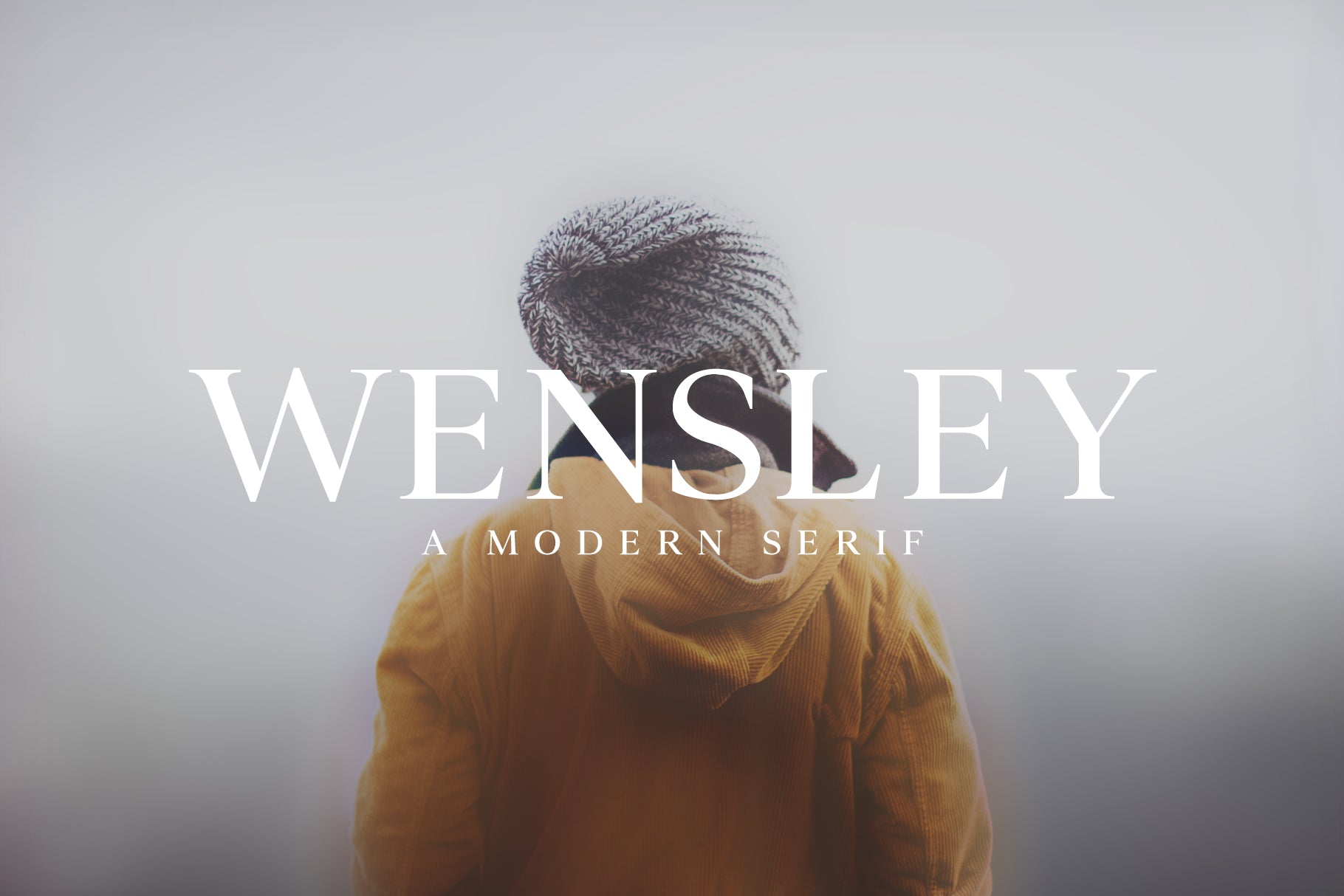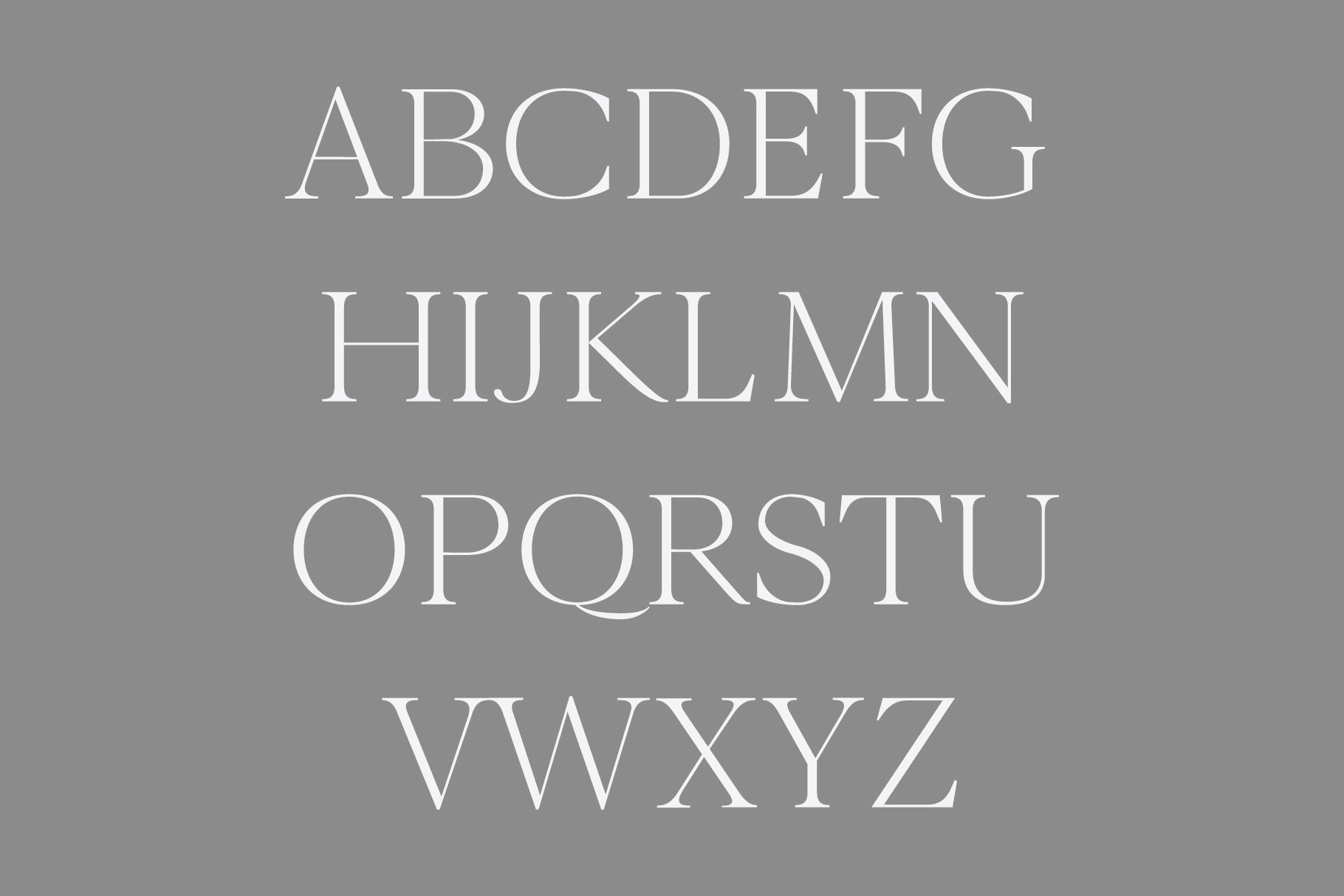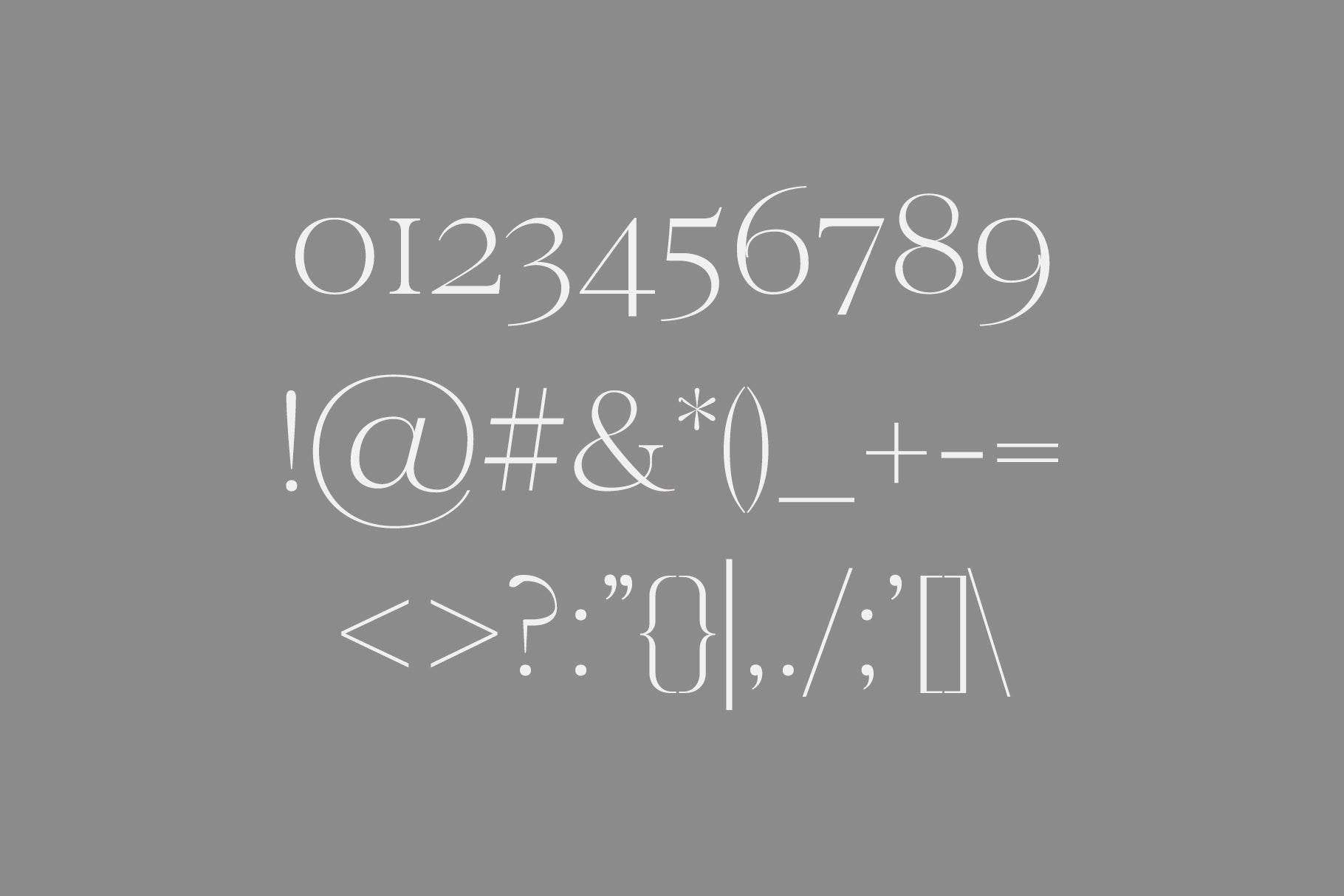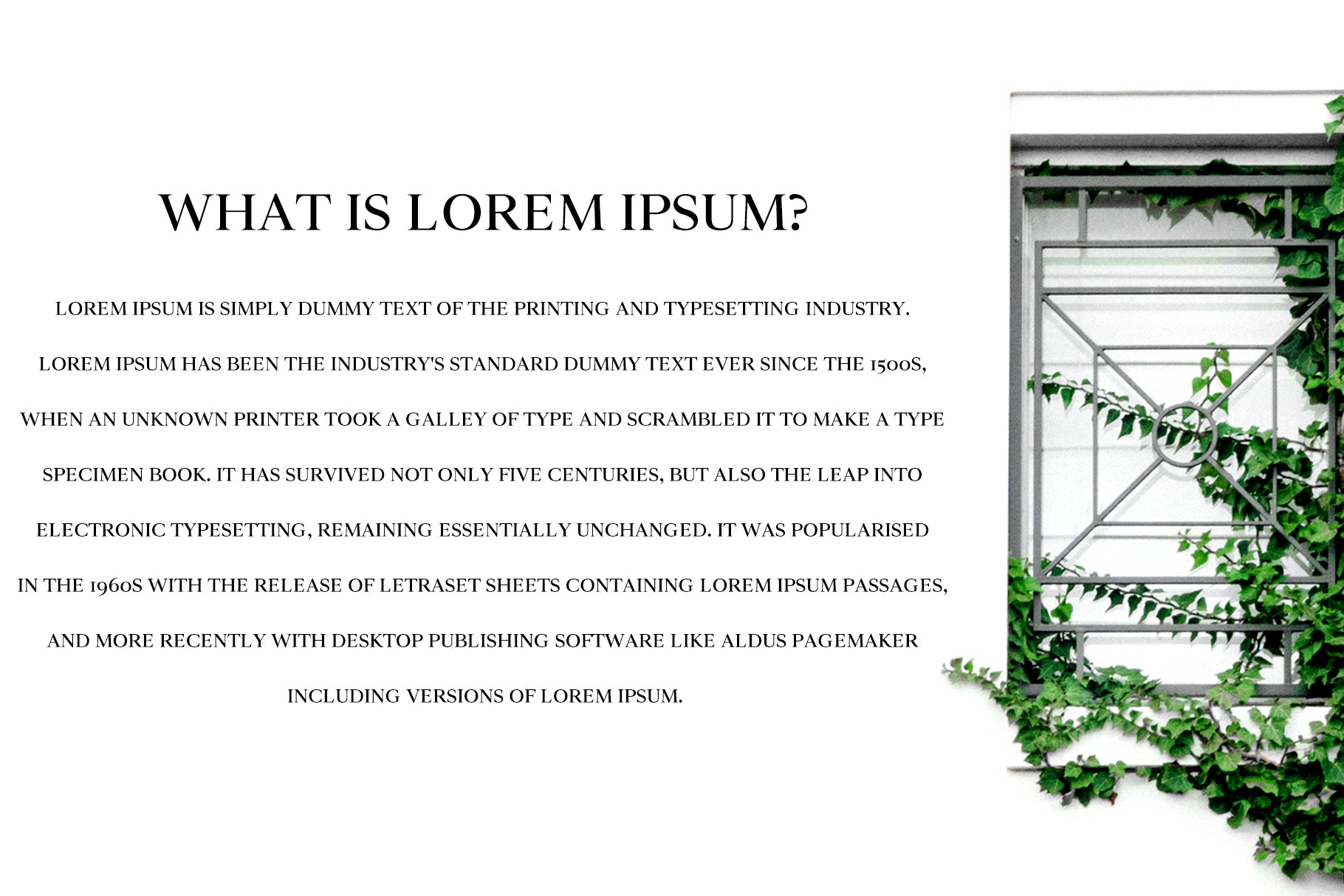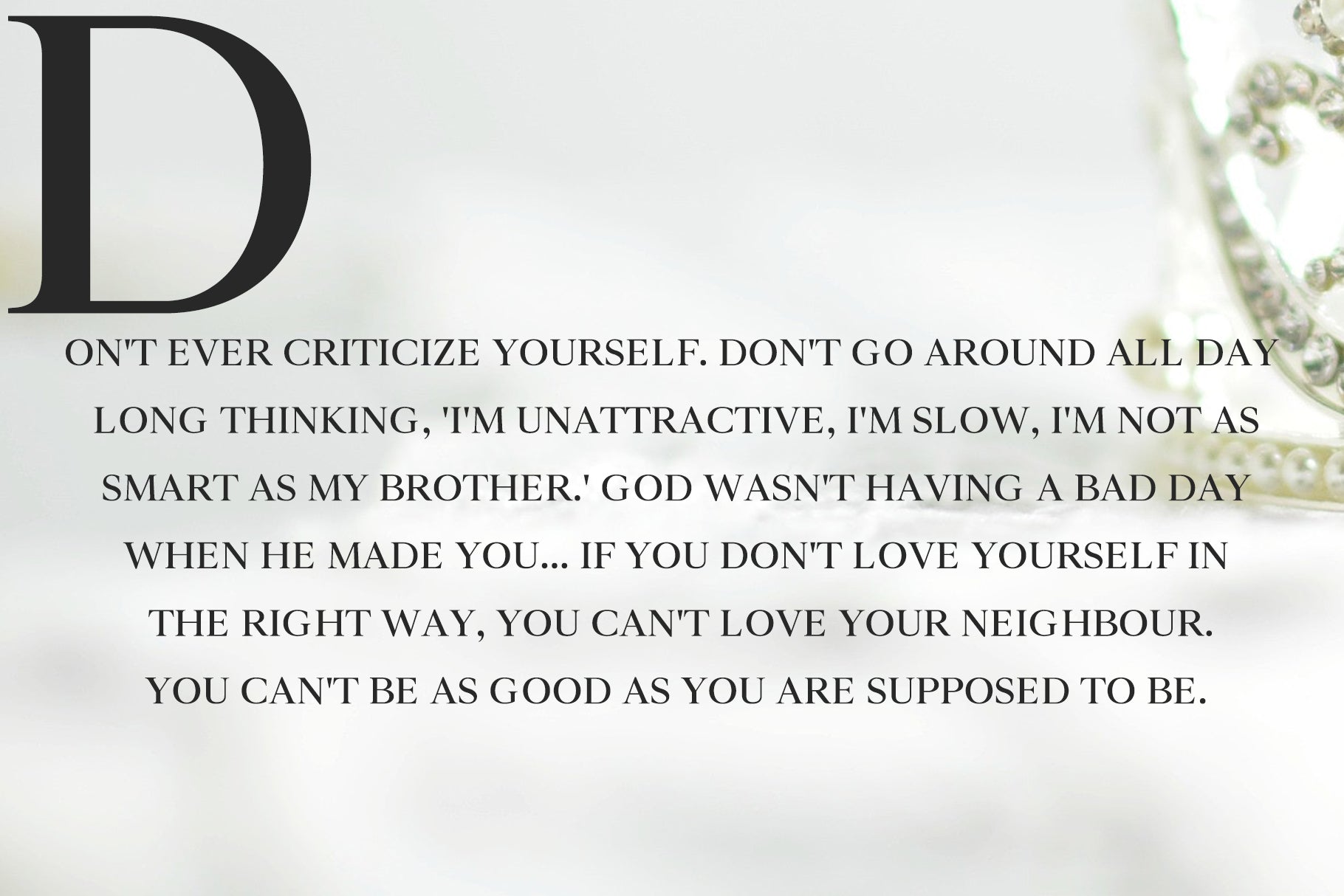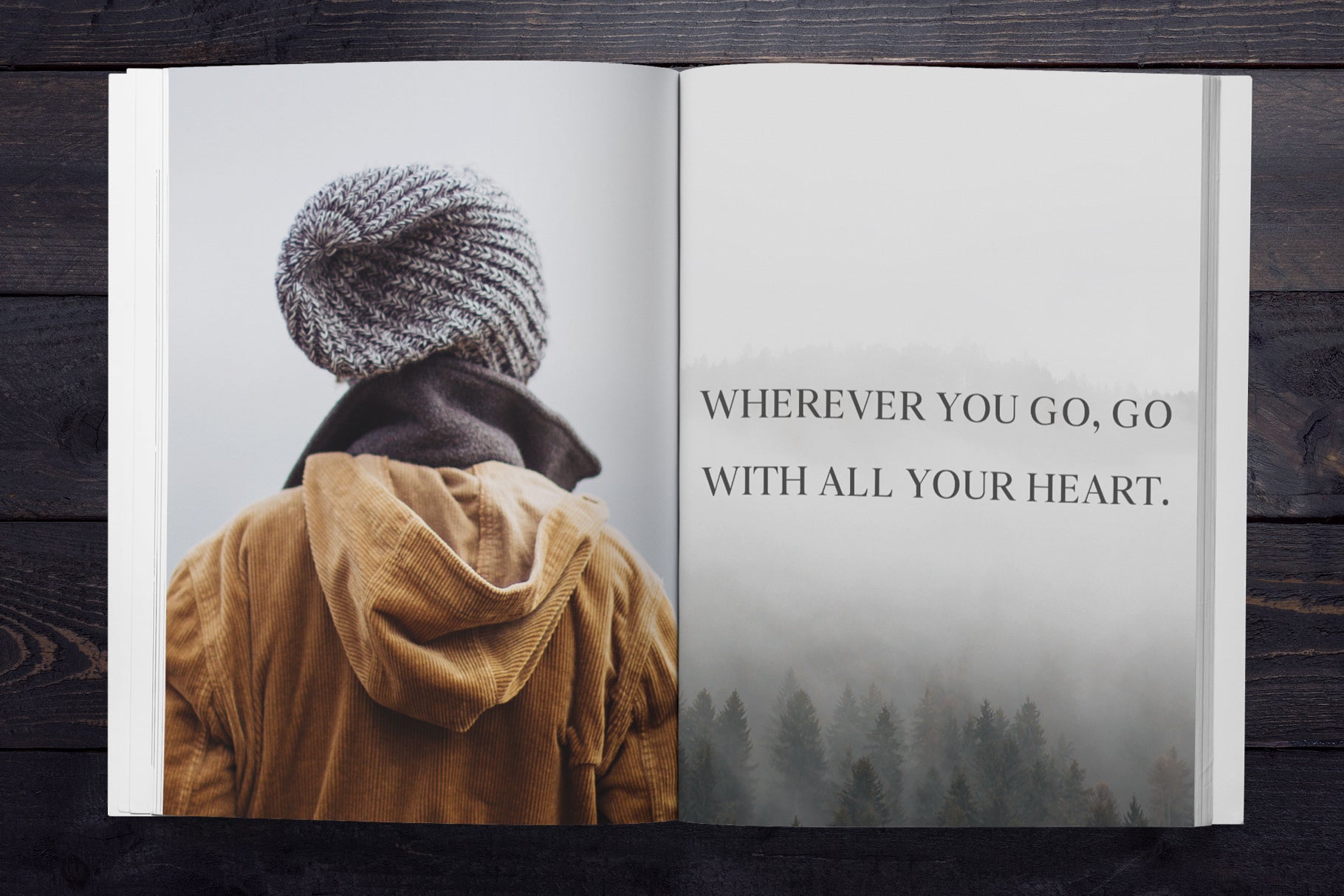
Wensley is a modern high-class serif font typeface. It includes all basic glyphs with Non-English characters. This font will pair beautifully with the script, signature or handwriting style.
Wensley Font Features:
Uppercase Multilingual Letters
Lowercase Multilingual Letters
Numbers & Punctuation
Non English Characters ( Latin Extended A )